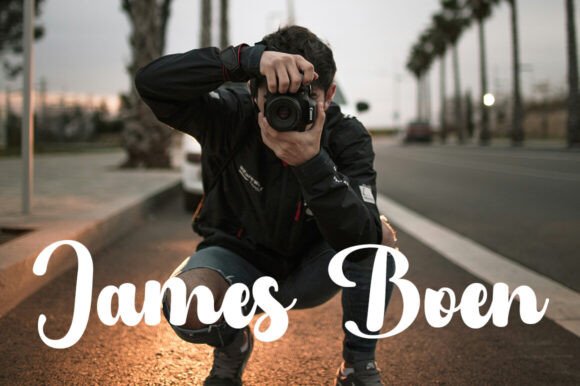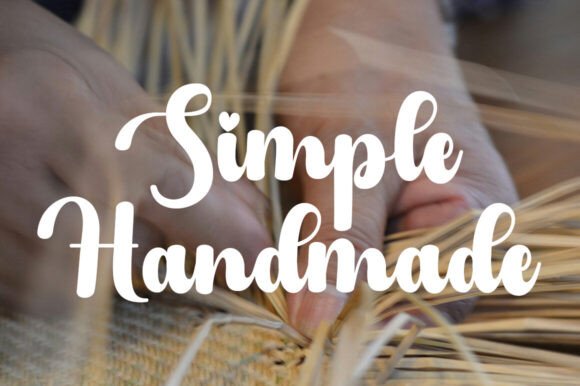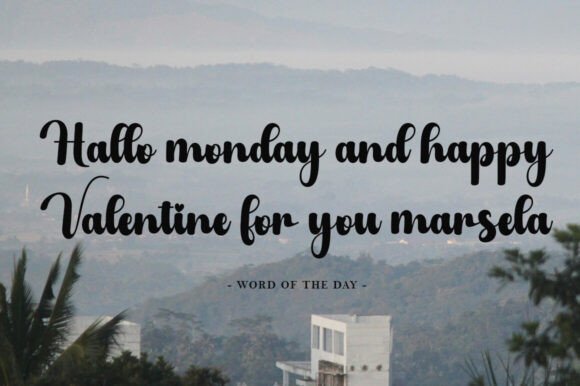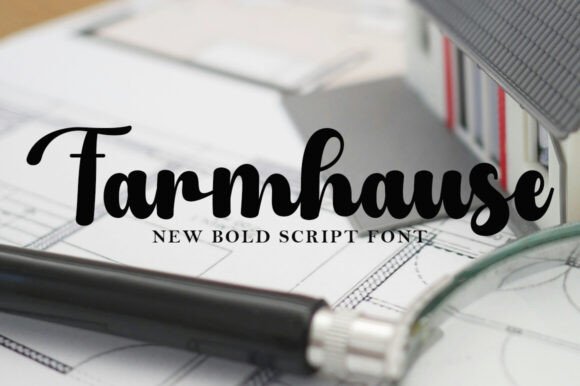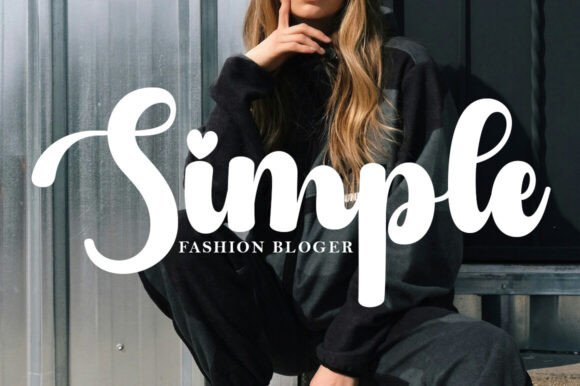
Discover the Charming Handwritten Font: Angela Font
Are you looking for a font that can add a touch of warmth and personality to your design projects? Look no further than Angela Font, a charming handwritten font that embodies freshness and casual elegance. With its fluid strokes and organic lines, Angela is perfect for a wide range of design applications, from branding and invitations to social media graphics and more.
The Characteristics of Angela Font
Angela Font is a unique and captivating typeface that boasts a laid-back vibe, making it ideal for designers who want to create a relaxed and approachable atmosphere in their work. The font’s fluid strokes and organic lines give it a natural, hand-crafted feel that is both refreshing and visually appealing. Whether you’re designing a logo, creating an invitation, or crafting a social media graphic, Angela Font is sure to add a touch of warmth and personality to your project.
Uses for Angela Font
Angela Font is a versatile typeface that can be used in a variety of design projects, including:
- Branding: Use Angela Font to create a unique and memorable brand identity that reflects your company’s personality and values.
- Invitations: Add a touch of elegance and sophistication to your invitations with Angela Font, perfect for weddings, parties, and other special events.
- Social Media Graphics: Use Angela Font to create eye-catching social media graphics that showcase your brand’s personality and style.
- Packaging: Add a personal touch to your product packaging with Angela Font, making it stand out on store shelves.
Benefits of Using Angela Font
There are many benefits to using Angela Font in your design projects, including:
- Unique and Memorable: Angela Font is a one-of-a-kind typeface that will help your design project stand out from the crowd.
- Easy to Read: Despite its handwritten nature, Angela Font is surprisingly easy to read, making it perfect for body text and headlines.
- Versatile: Angela Font can be used in a wide range of design projects, from digital to print.
- Time-Saving: With Angela Font, you can create professional-looking designs in a fraction of the time it would take to create a custom illustration.
Tips for Using Angela Font
To get the most out of Angela Font, here are a few tips to keep in mind:
- Use it sparingly: While Angela Font is beautiful, it can be overwhelming if used excessively. Use it sparingly to create a focal point in your design.
- Experiment with colors: Angela Font looks great in a variety of colors, so don’t be afraid to experiment and find the perfect hue for your design.
- Pair it with other fonts: Angela Font pairs well with a variety of other fonts, so try combining it with a bold sans-serif font for added contrast.
Angela Font is a charming handwritten font that is sure to add a touch of warmth and personality to your design projects. With its fluid strokes and organic lines, Angela is perfect for a wide range of design applications, from branding and invitations to social media graphics and more. Whether you’re a designer, crafter, or DIY enthusiast, Angela Font is a great addition to your font library.
- Is Angela Font suitable for body text?
- While Angela Font is beautiful, it’s best suited for headlines and titles. For body text, a more traditional font may be more suitable.